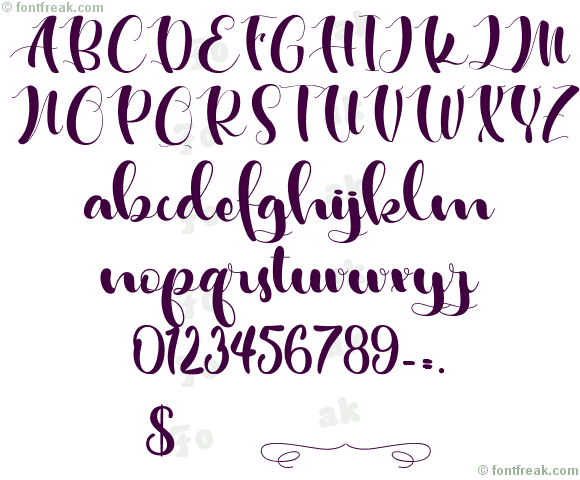
Double Jacket
Double Jacket, designed by Suthi Srisopha, is a captivating display font that combines elegance with a playful flair. This free-to-download typeface showcases a unique blend of artistic elements that make it ideal for various design projects. The font features a distinct handwritten style, characterized by fluid strokes and graceful curves. Its medium stroke weight and moderate contrast provide a balanced appearance, ensuring legibility while maintaining a decorative charm. The spacing between the letters is well-considered, allowing for easy reading and enhancing the overall aesthetic appeal.
This versatile font is perfect for a range of use cases. It shines in wedding invitations, where its whimsical nature can convey romance and joy. Additionally, Double Jacket is well-suited for movie posters, lending an artistic touch that captures attention and intrigue. Restaurant menus can also benefit from this font, as it adds a stylish and inviting feel to the offerings. Content creators and graphic designers will find it an excellent choice for social media graphics, enabling them to craft eye-catching visuals that stand out in a crowded digital space.
Targeting graphic designers, small business owners, and content creators, Double Jacket offers an approachable yet sophisticated option for those looking to elevate their designs. The font's unique characteristics allow it to resonate with audiences seeking creativity and individuality in their visual communication.
What truly sets the Double Jacket font apart is its ability to blend fun with formality, making it a versatile choice for various projects. Its distinctive style can captivate viewers while ensuring that the message remains clear and impactful. Embrace the charm of Double Jacket font free download and elevate your next design project with this exquisite typeface.